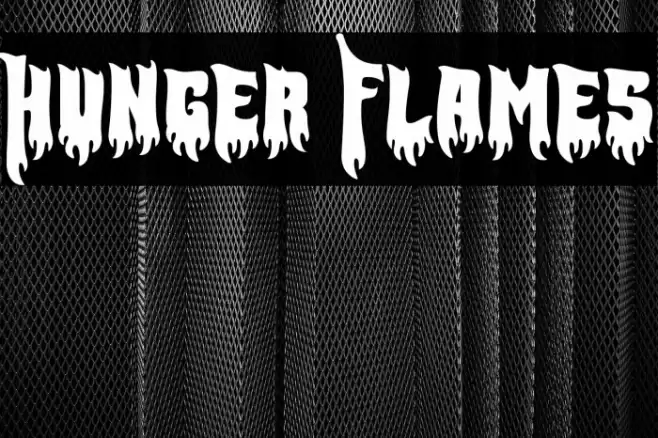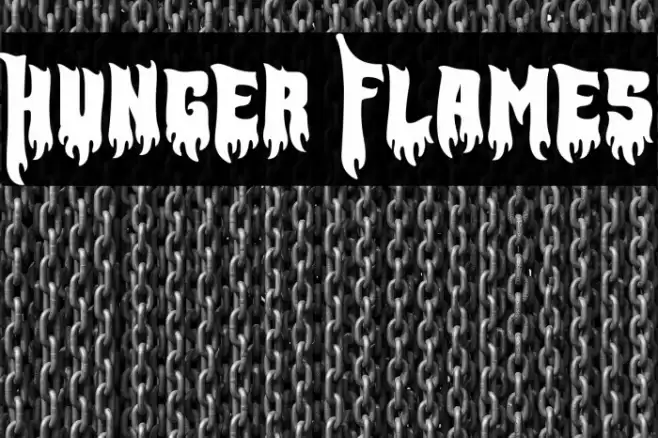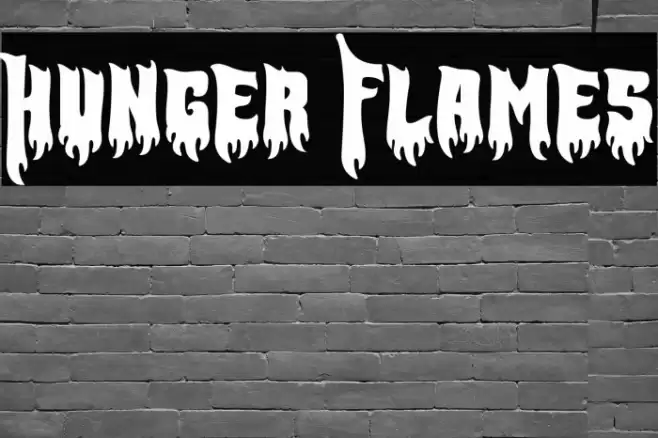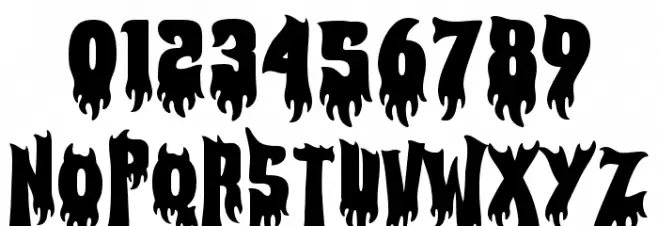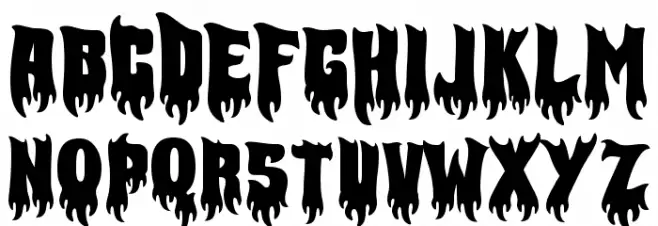
Hunger Flames Font
Hunger Flames Description
This font features a striking and dramatic design with letters that appear to be engulfed in flames. The bold and dynamic style captures attention with its unique flame-like extensions that give each character a sense of movement and intensity. The uppercase and lowercase letters maintain a consistent fiery theme, while the numbers and special characters also exhibit this distinctive burning effect. The font's overall appearance is both edgy and artistic, making it ideal for projects that require a bold statement.
A bold, flame-inspired font with dramatic, fiery extensions from Uncategorized fonts.
- Proposed Projects: Ideal for Halloween-themed designs, horror movie posters, edgy branding, and event promotions that require a bold, eye-catching typeface.
- Contrast: High